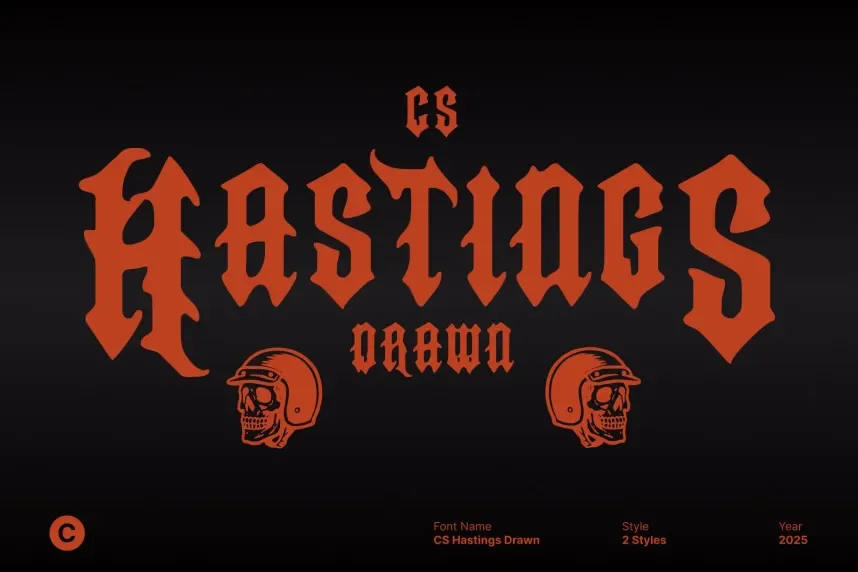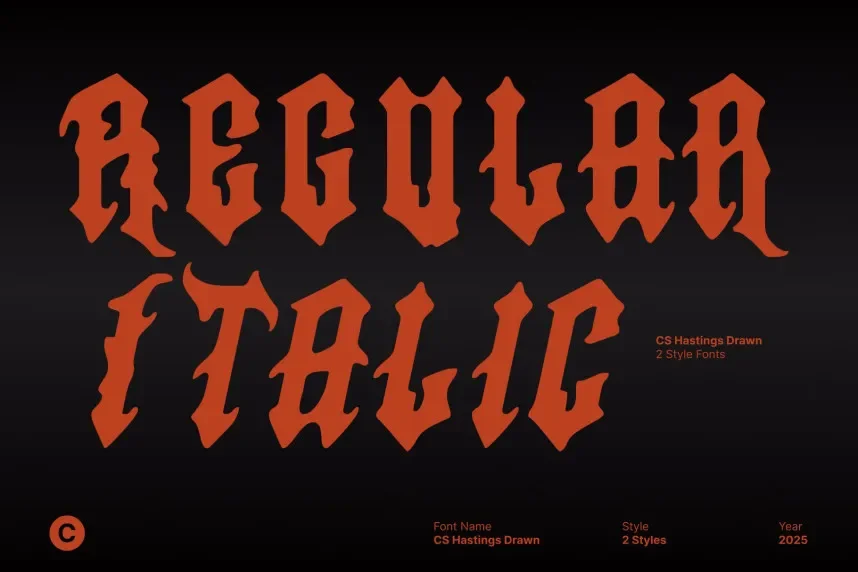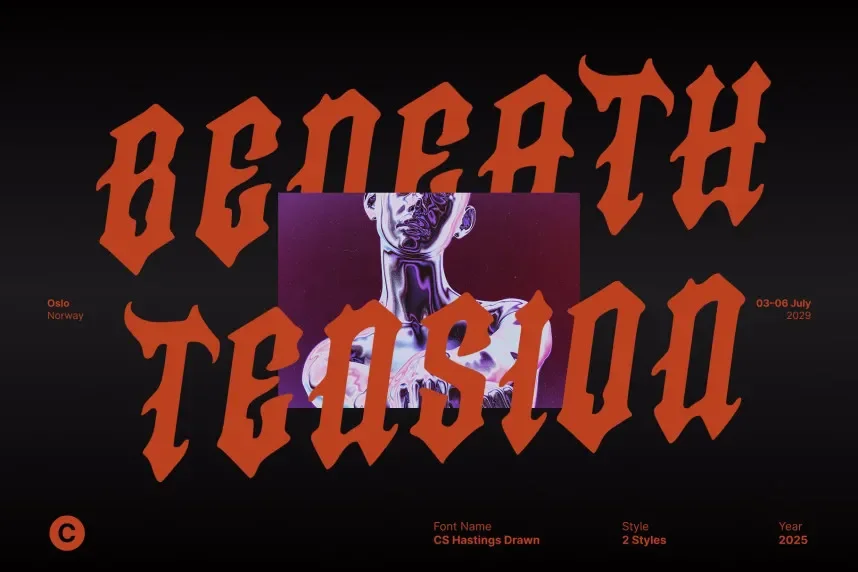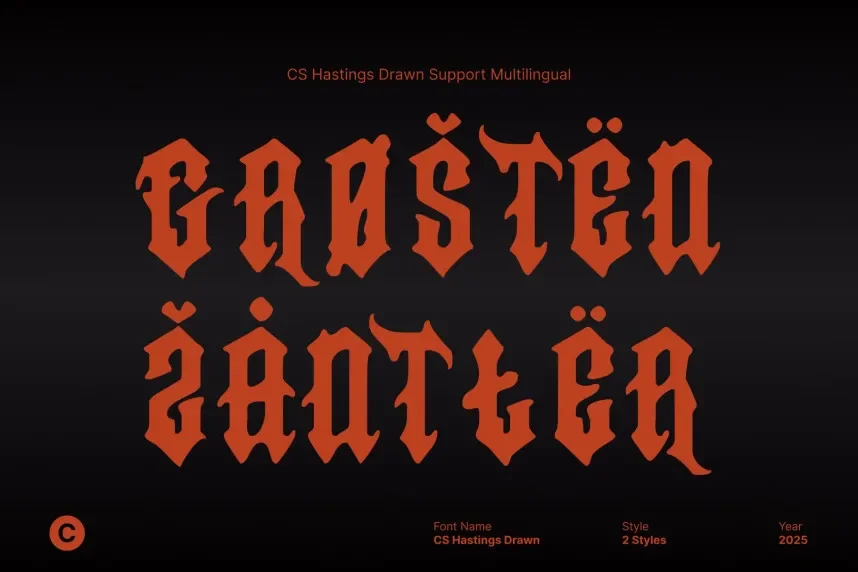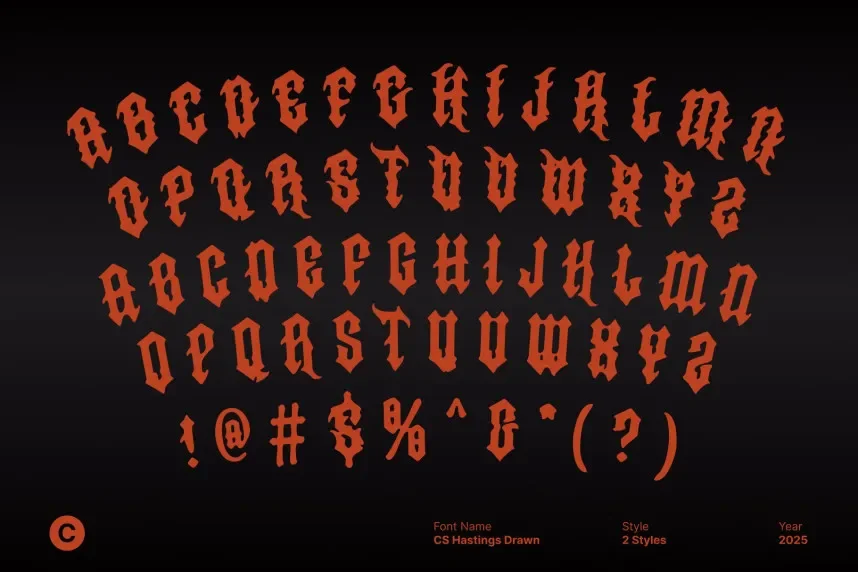
CS Hastings Drawn Font solves the problem of needing bold, unique typography with a hand-drawn feel. It is perfect for projects that require strong visual impact and artistic flair.
CS Hastings is a display font with thick, irregular strokes and rough edges, giving it a distressed, hand-sketched look. The letterforms have a strong, commanding presence, making it ideal for headlines and short, impactful text.